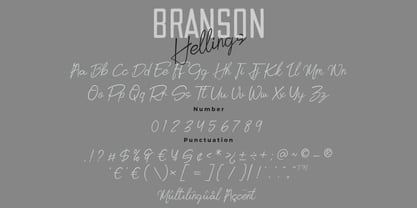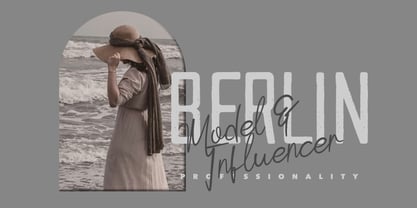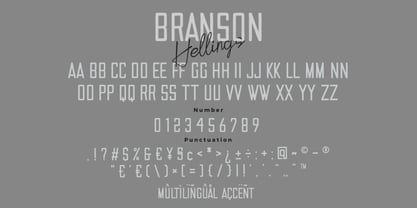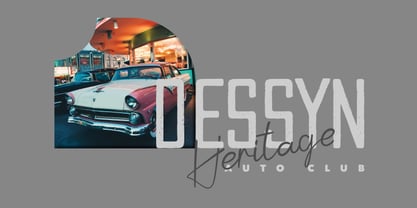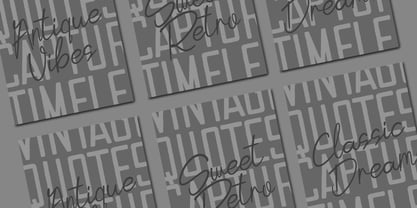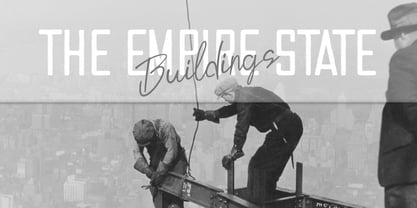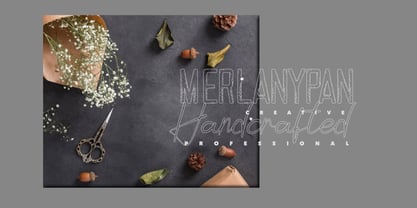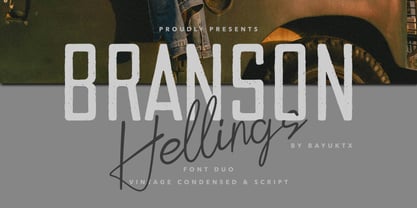
Branson Hellings
by Bayuktx
The Branson Hellings Font Family was designed by Bayu Aji Fais Mursid and published by Bayuktx. Branson Hellings contains 2 styles and family package options. More about this family
Branson Hellings – Vintage Condensed & Script Font Duo Branson Hellings Vintage Condensed & Script Font Duo is a stylish typeface combination inspired by vintage signage, automotive culture, and handcrafted lettering. It pairs a bold condensed sans with a smooth flowing script, creating a balance between strong structure and elegant movement. The condensed style delivers a tall, impactful look with subtle worn textures, while the script adds a natural, dynamic touch with fluid strokes. This combination makes it perfect for creating eye-catching, nostalgic yet modern designs. Designed for readability and versatility, Branson Hellings works well for bold headlines, branding, and standout typography. Suitable for both digital and print, it’s ideal for projects that need a strong vintage character with a handcrafted feel. Key Features : * Uppercase & Lowercase Characters * Numerals & Punctuation * Multilingual Support * PUA Encoded & OpenType Features * Vintage Textured Style * Bold Condensed Letterforms * Smooth Handwritten Script Suitable For : * Vintage Branding & Logos * Automotive & Garage Designs * Posters & Headlines * Accessories & Merchandise * Retro Packaging & Labels * Barbershop & Classic Shops * Signage & Display Typography With Branson Hellings Vintage Condensed & Script Font Duo, your designs gain a bold retro attitude, handcrafted elegance, and a timeless vintage aesthetic — perfect for projects that aim to be strong, stylish, and full of character.
Designers: Bayu Aji Fais Mursid
Foundry: Bayuktx